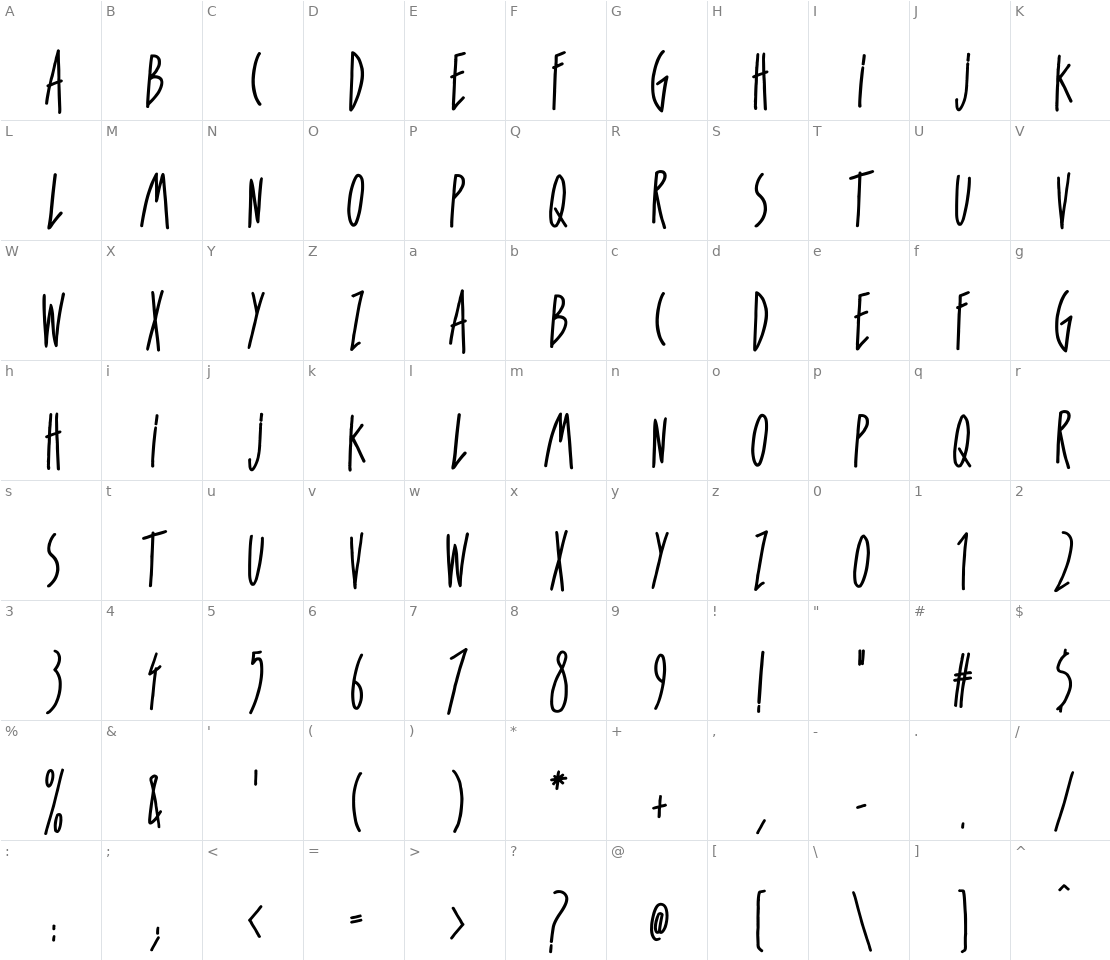
For Girls Only Bold
For Girls Only Bold is a condensed handwritten face from imagex with bold, narrow letterforms that feel breezy and slightly quirky. The strokes have a casual, pen-on-paper looseness to them, leaning playful and feminine without overdoing it. Best at headline sizes for invitations, packaging, social media graphics, or anything that calls for personality in a tight space.